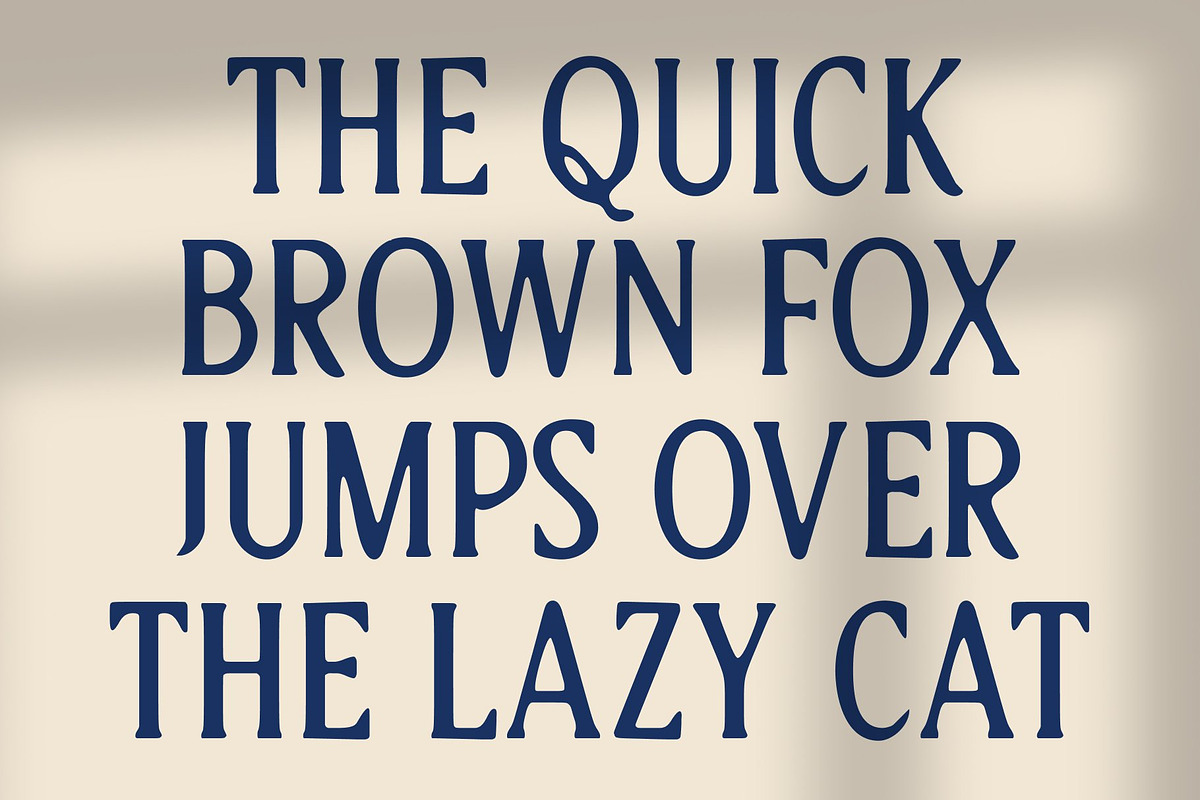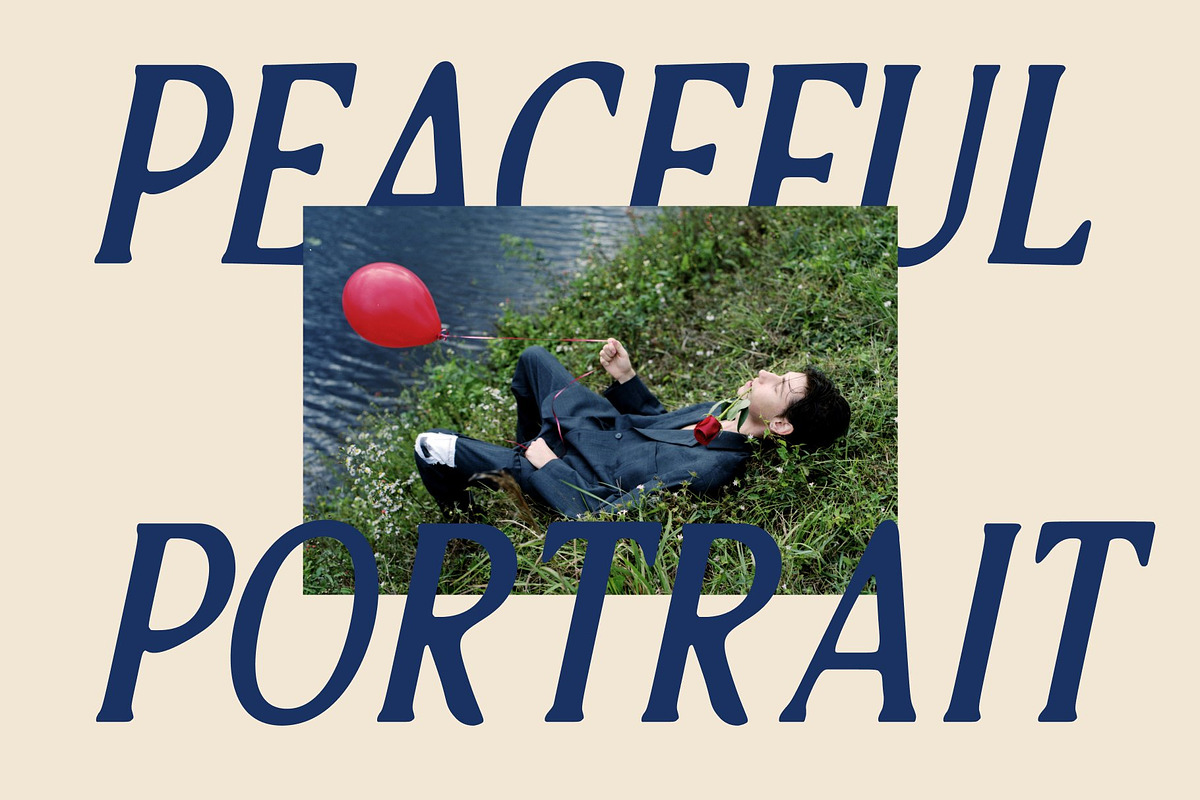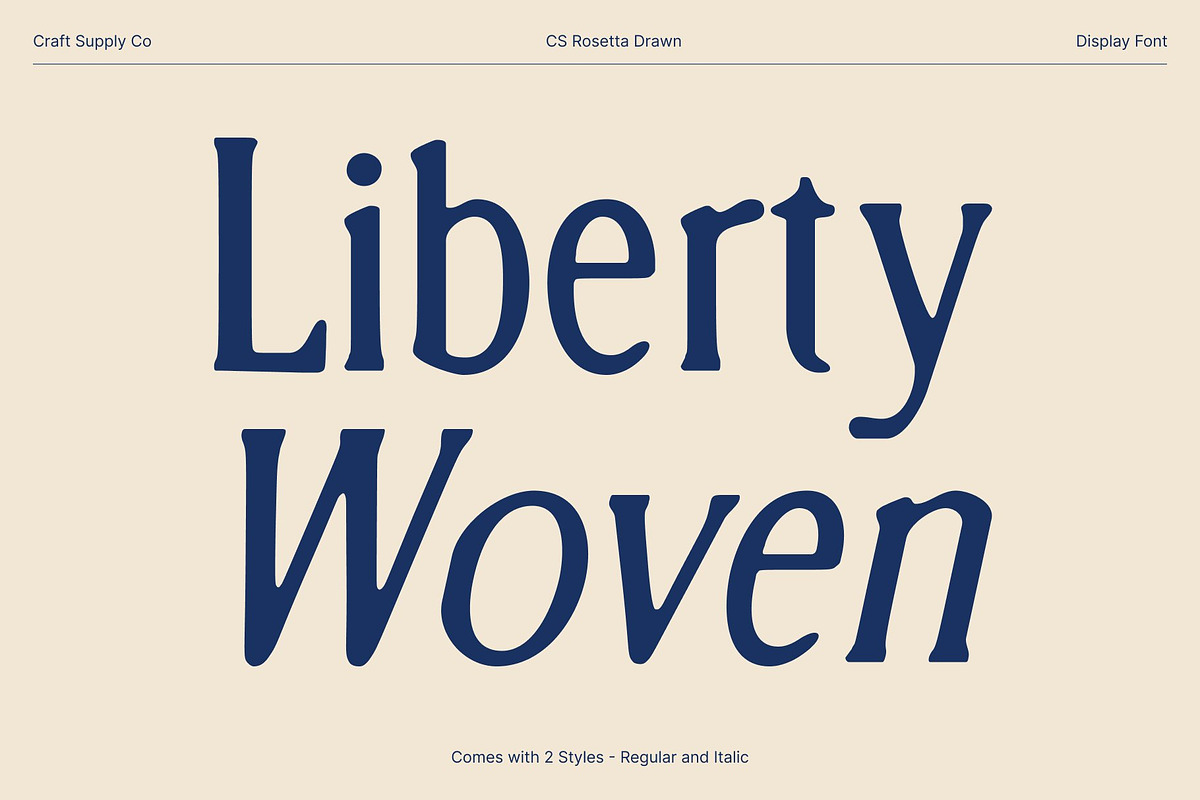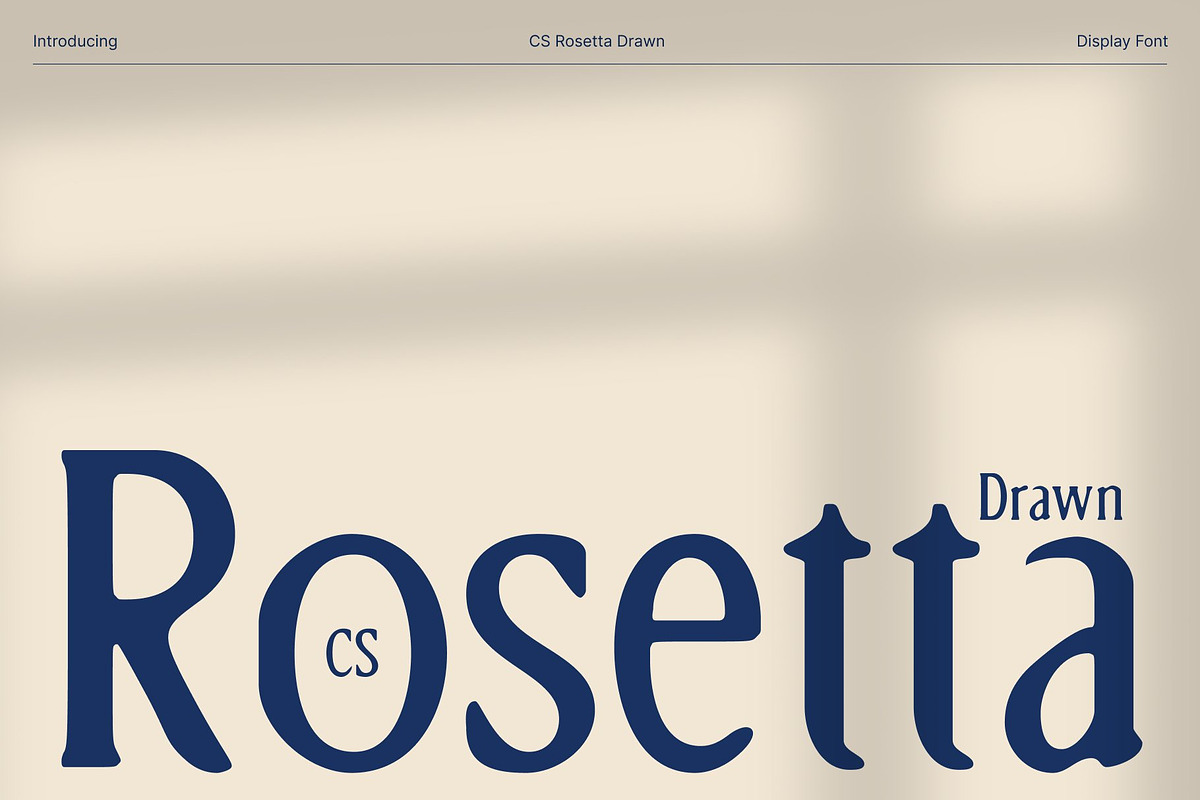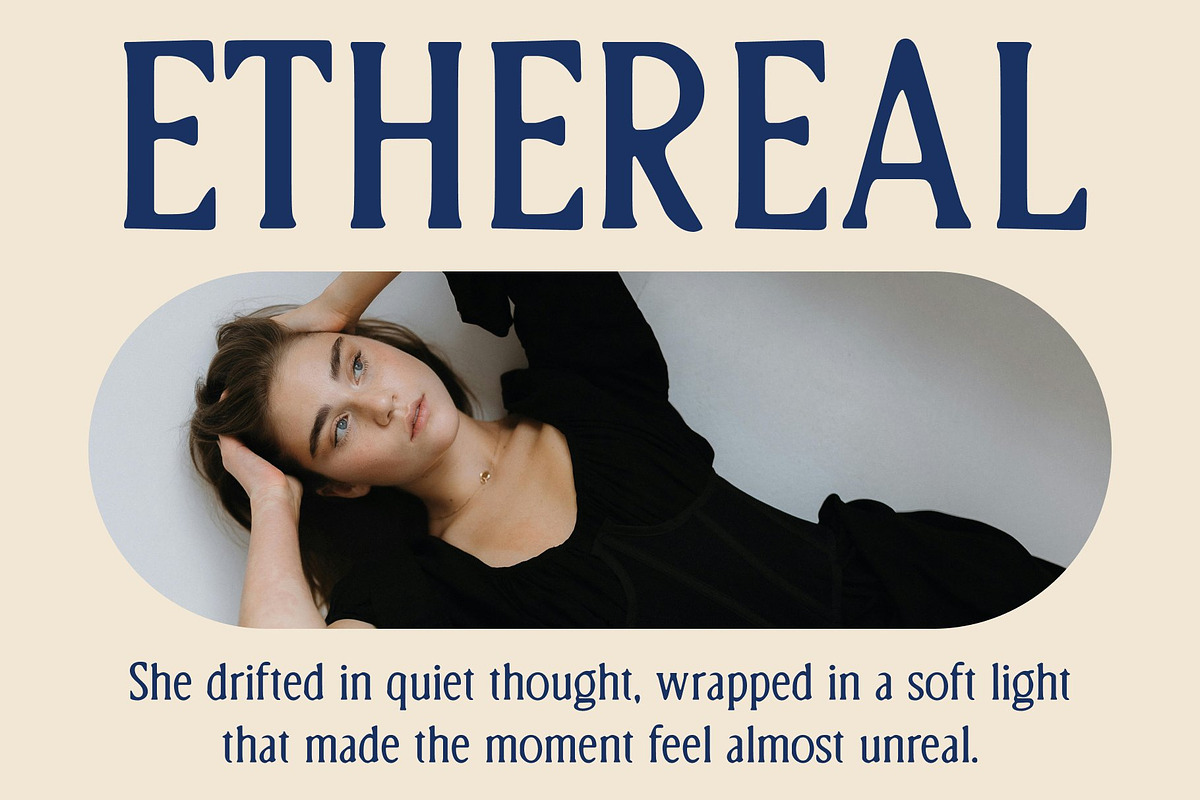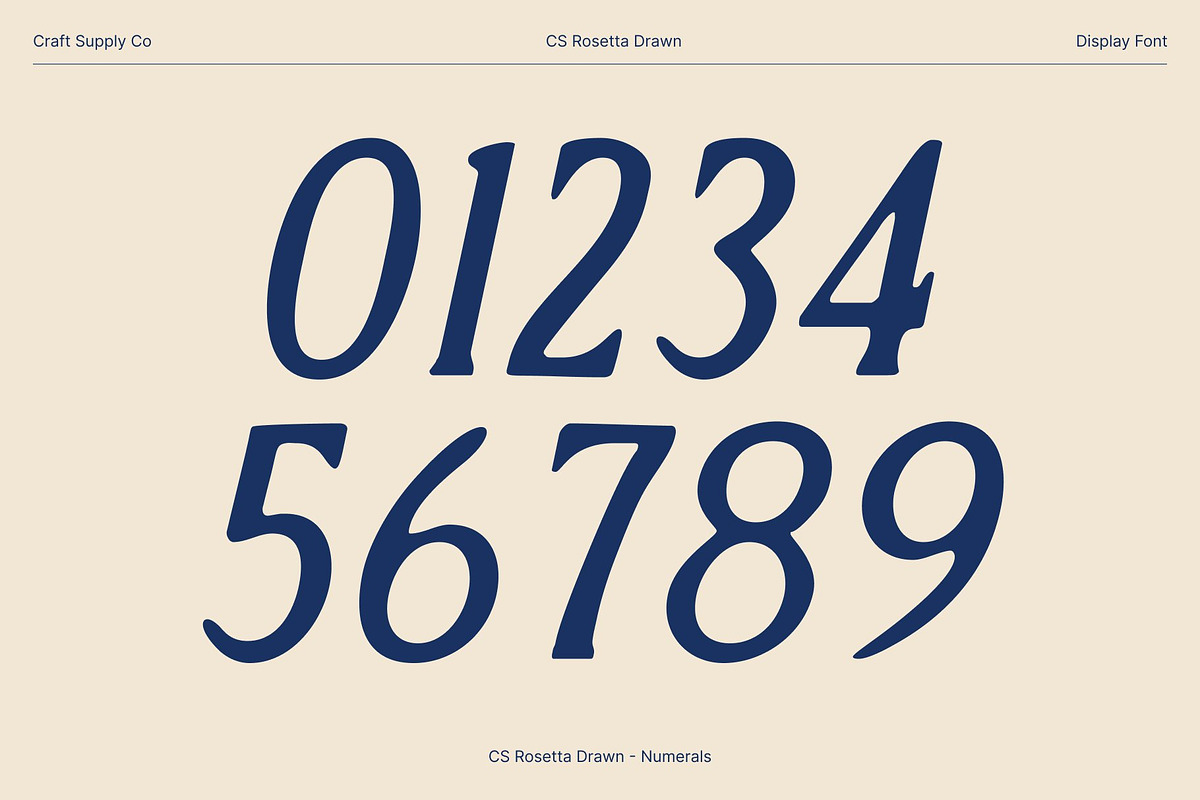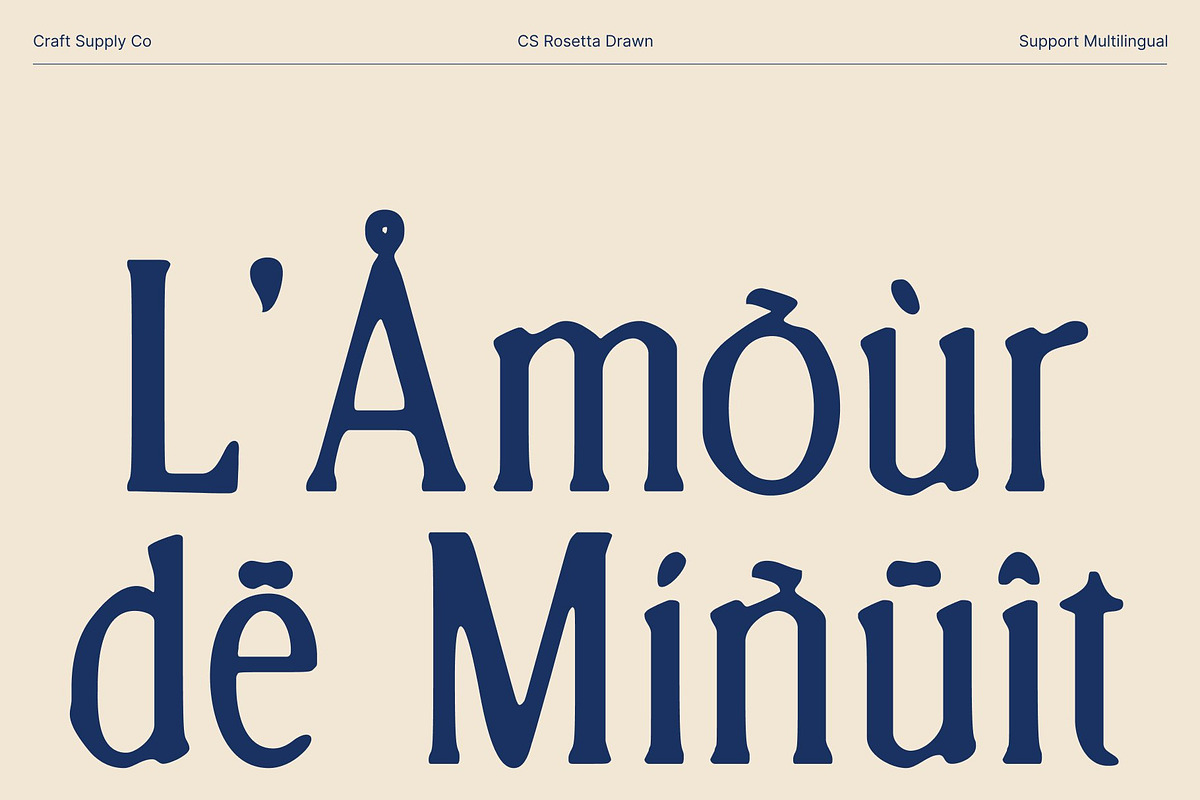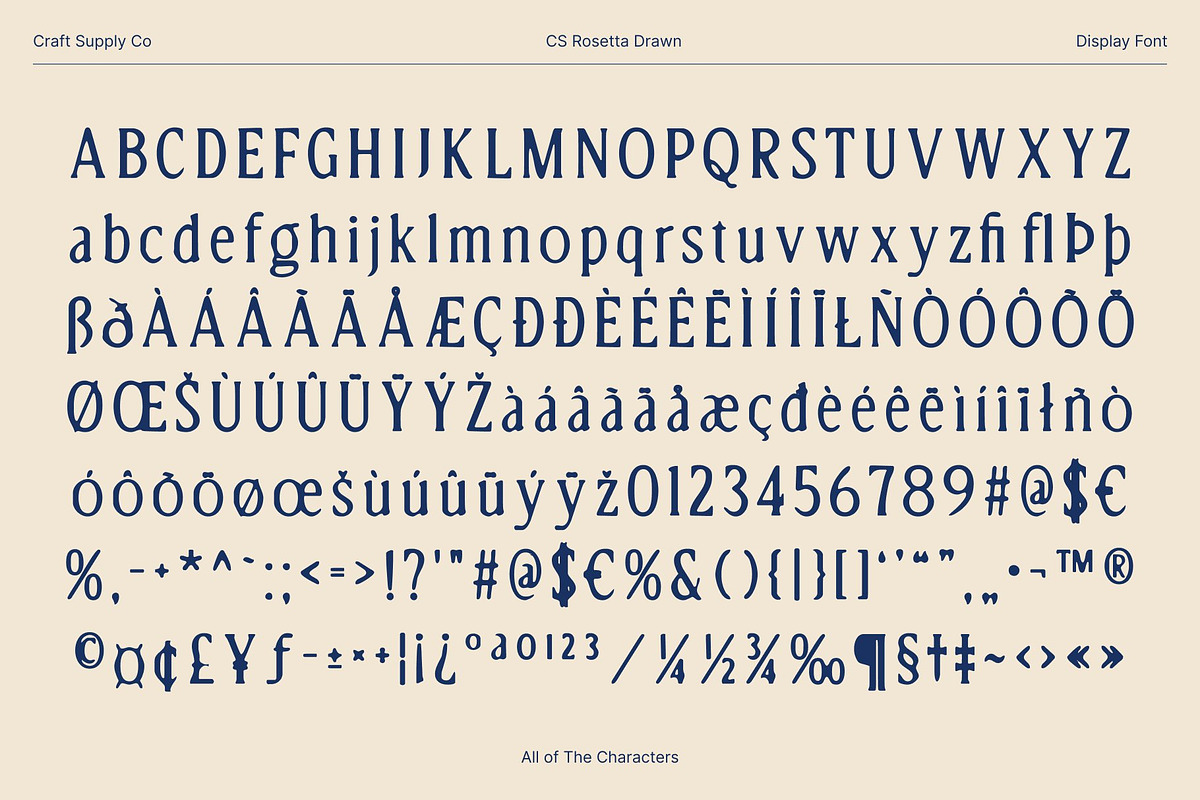
CS Rosetta Drawn
CS Rosetta Drawn – Modern Classic Serif with Artistic Expression
Elegant and Sophisticated Letterforms This is a modern classic serif font designed with clean, sleek shapes and contemporary lines. Its refined proportions create a polished, sophisticated appearance, making it perfect for designs that demand elegance, clarity, and visual allure. The font’s structure balances traditional serif qualities with a modern aesthetic, delivering timeless appeal.
Contemporary Design with Captivating Presence The font’s contemporary lines enhance its versatility, allowing it to perform beautifully across both print and digital applications. This font maintains readability and style in editorial layouts, branding projects, and luxury packaging, while offering a captivating presence that draws attention and communicates professionalism with flair.
Drawn Effect for Soft, Artistic Expression What sets this font apart is its subtle drawn effect, which introduces natural, handcrafted textures to the otherwise sleek letterforms. The organic imperfections add warmth, expressiveness, and artistic character, softening the modern structure and giving the font a unique, approachable personality.
Ideal for Luxury, Editorial, and Creative Projects This is perfect for luxury branding, high-end editorial design, posters, book covers, and creative projects that need a balance of sophistication and artistry. Its combination of clean modern forms and soft, expressive drawn textures makes it an elegant yet approachable choice, delivering timeless beauty with a handcrafted touch.